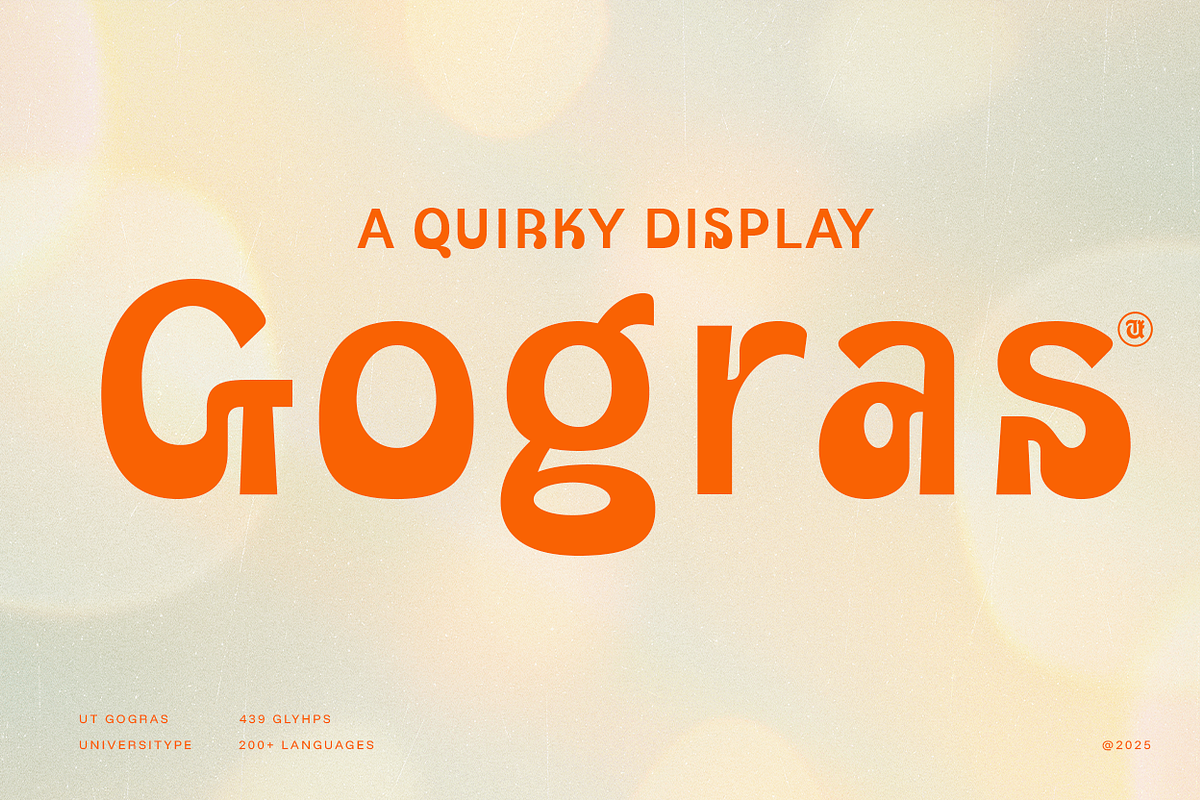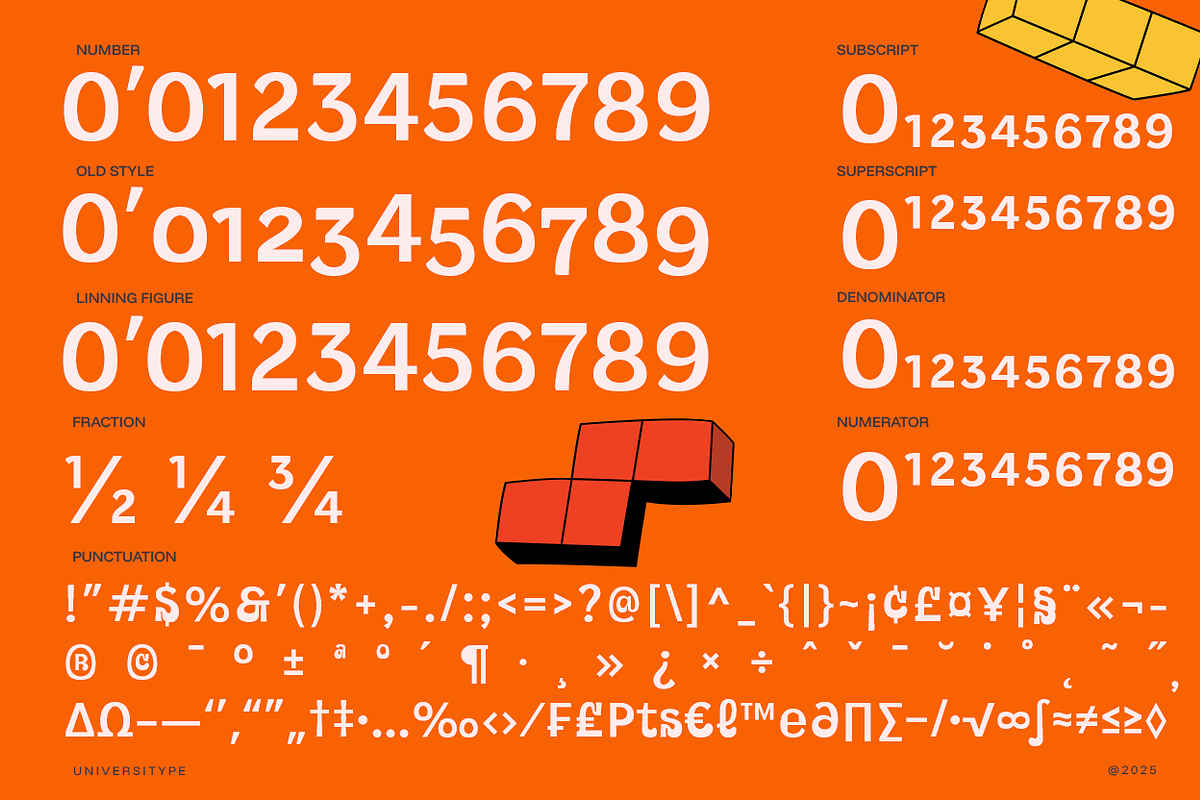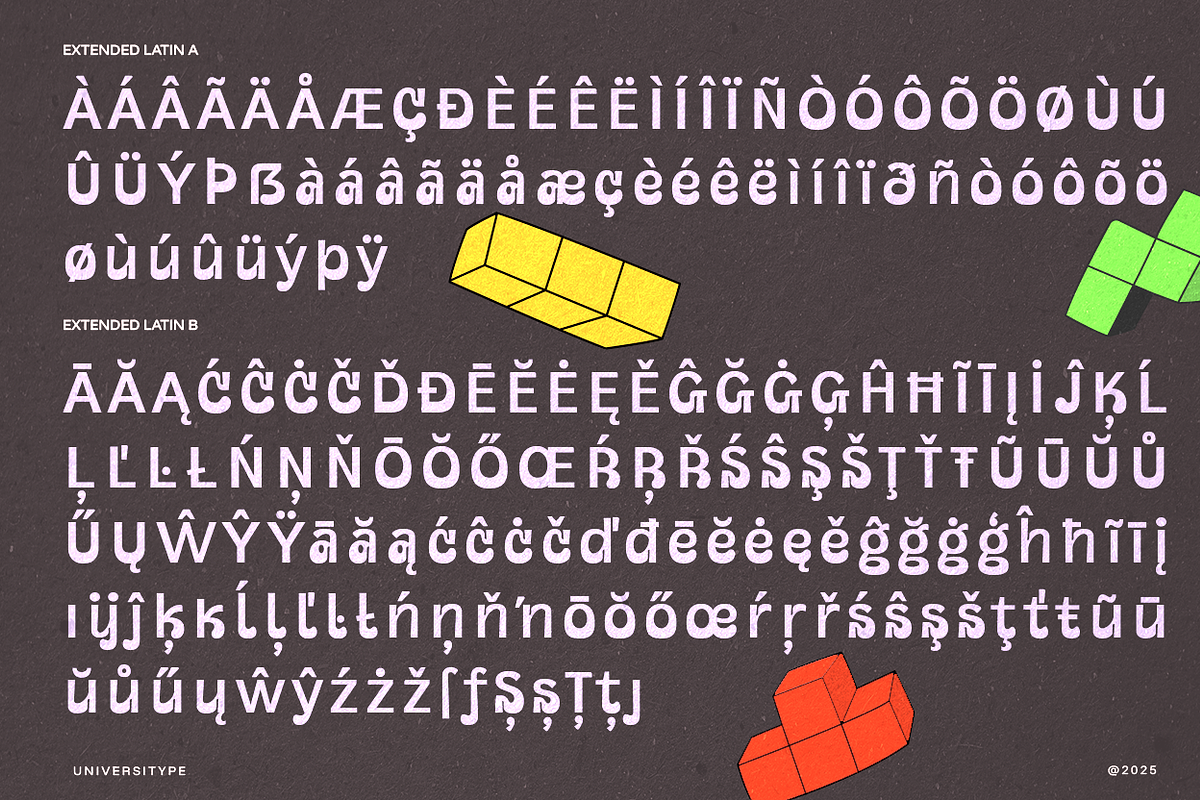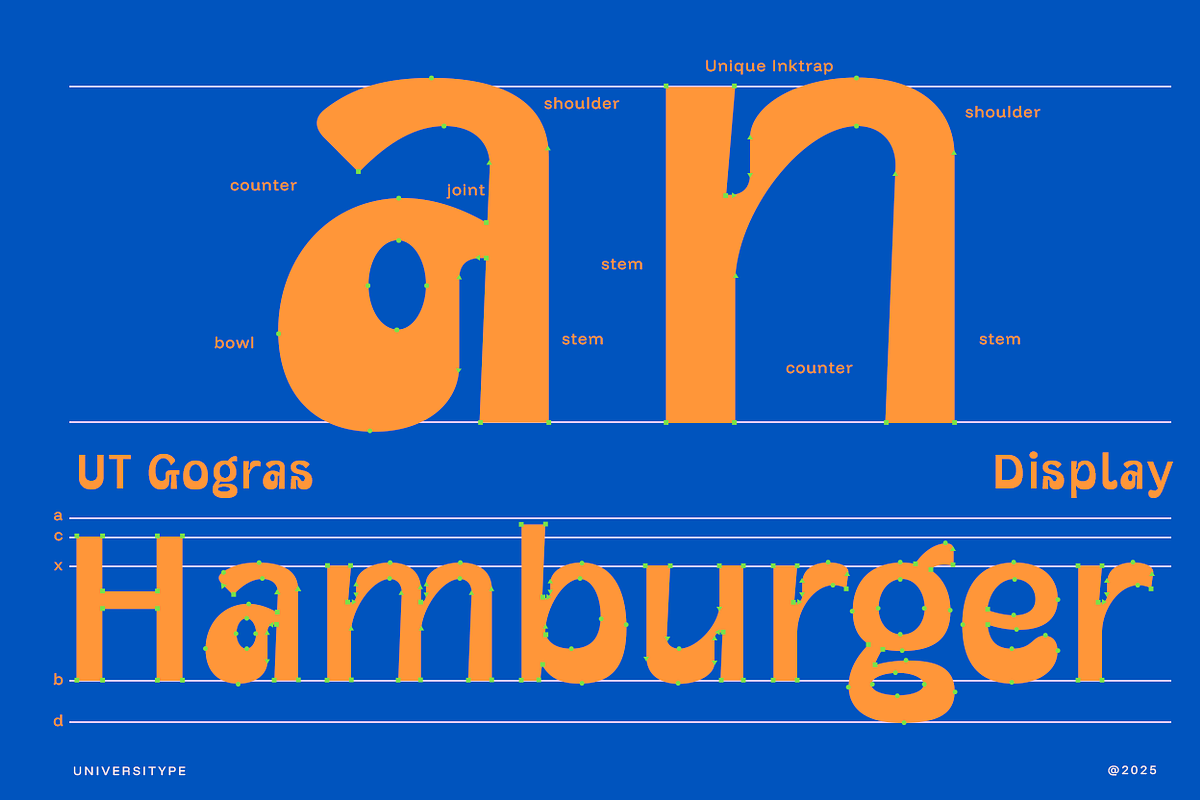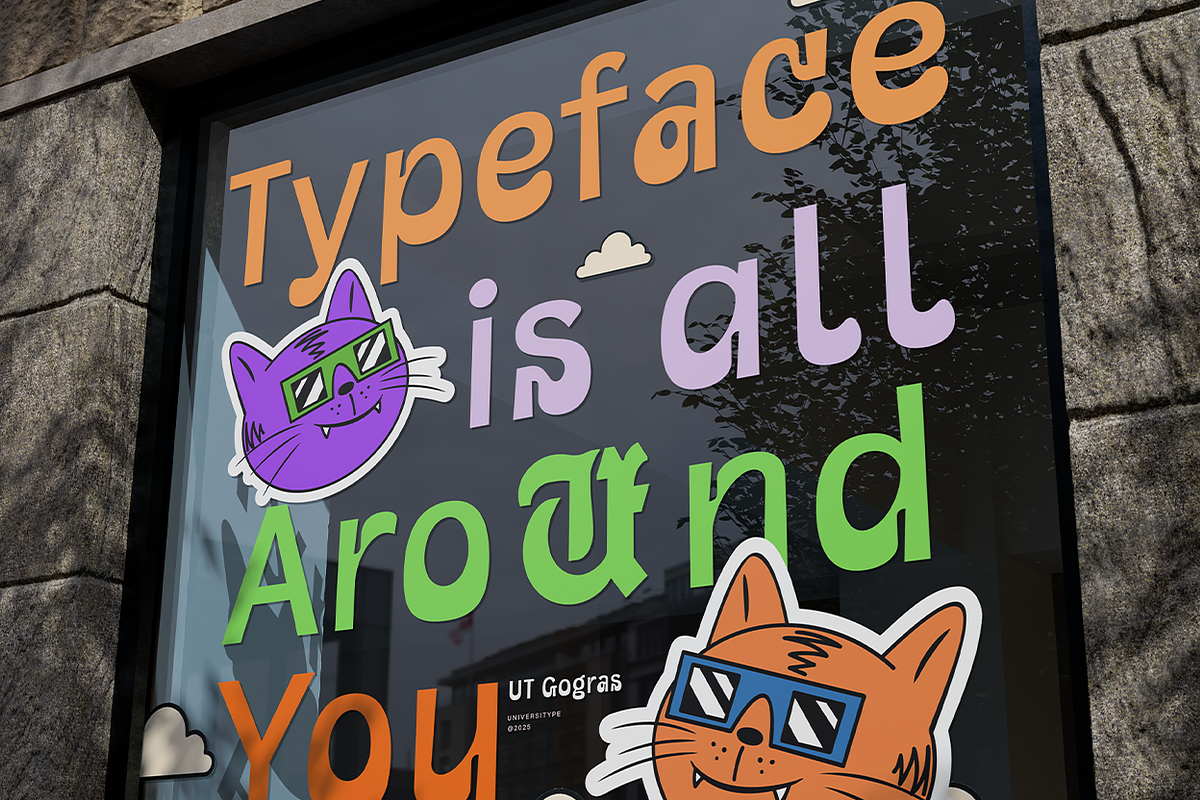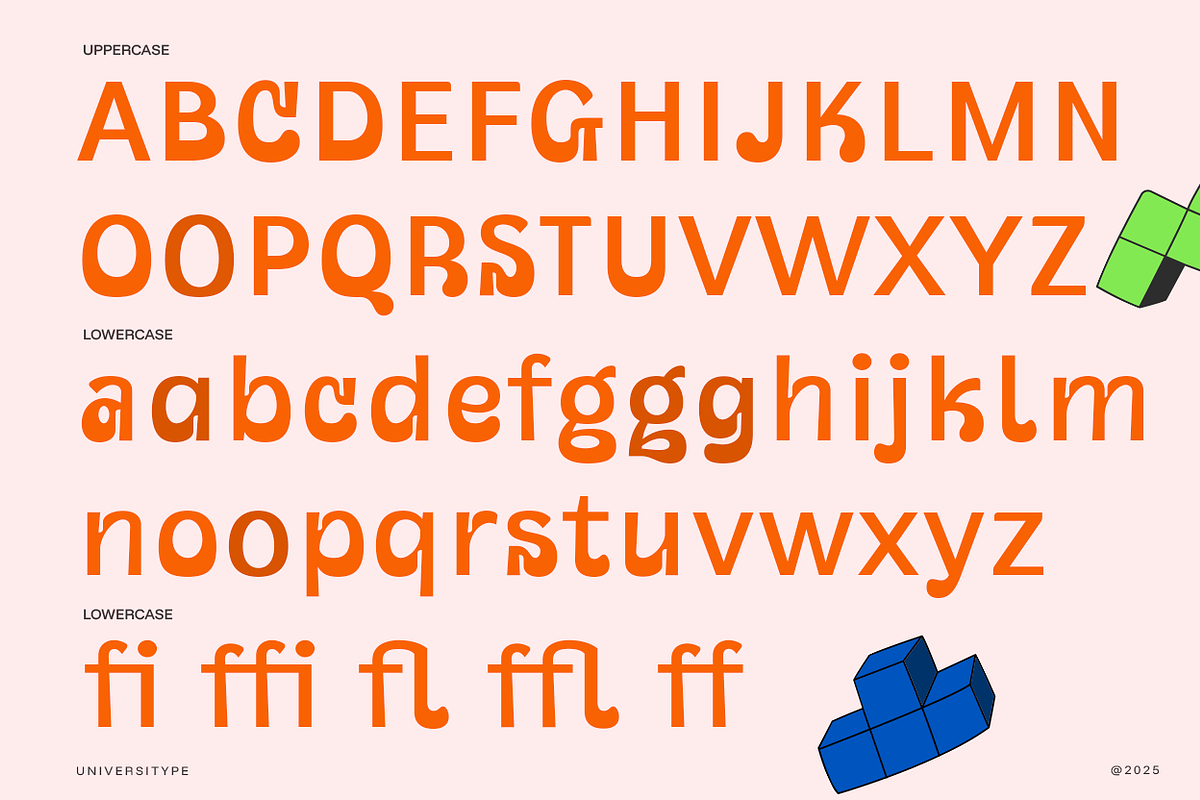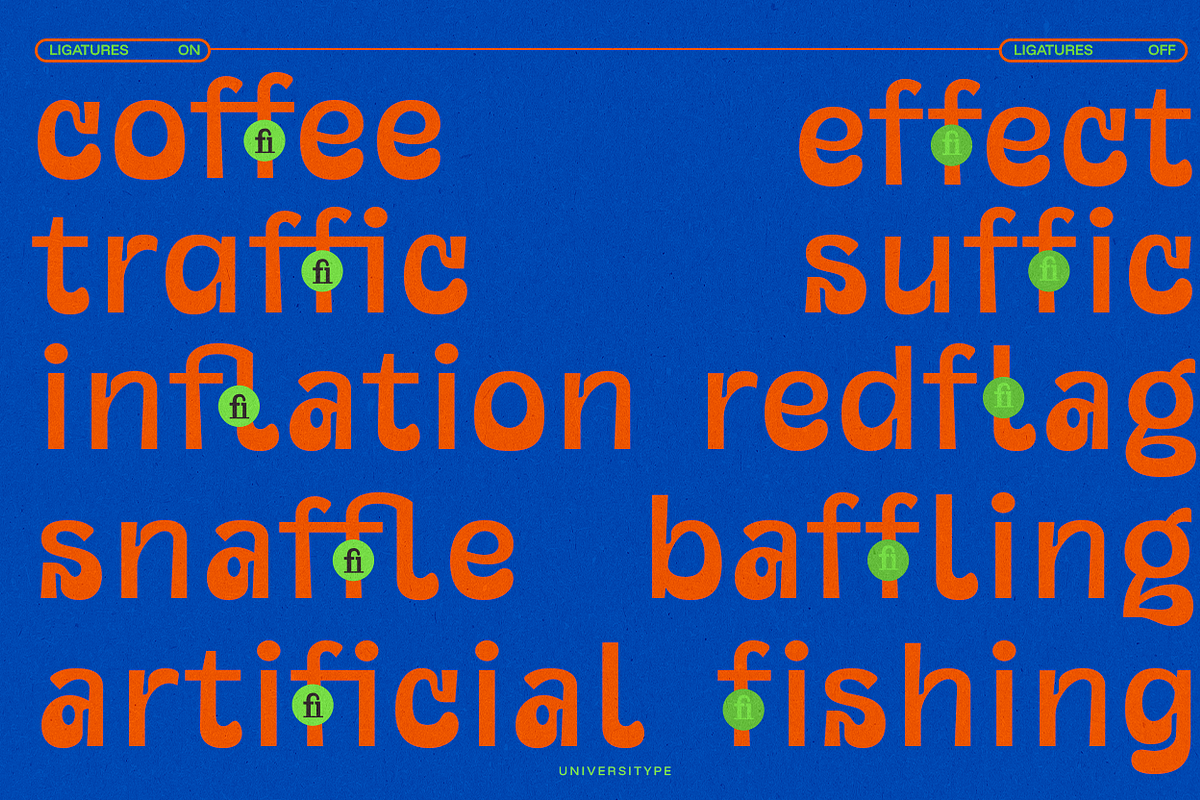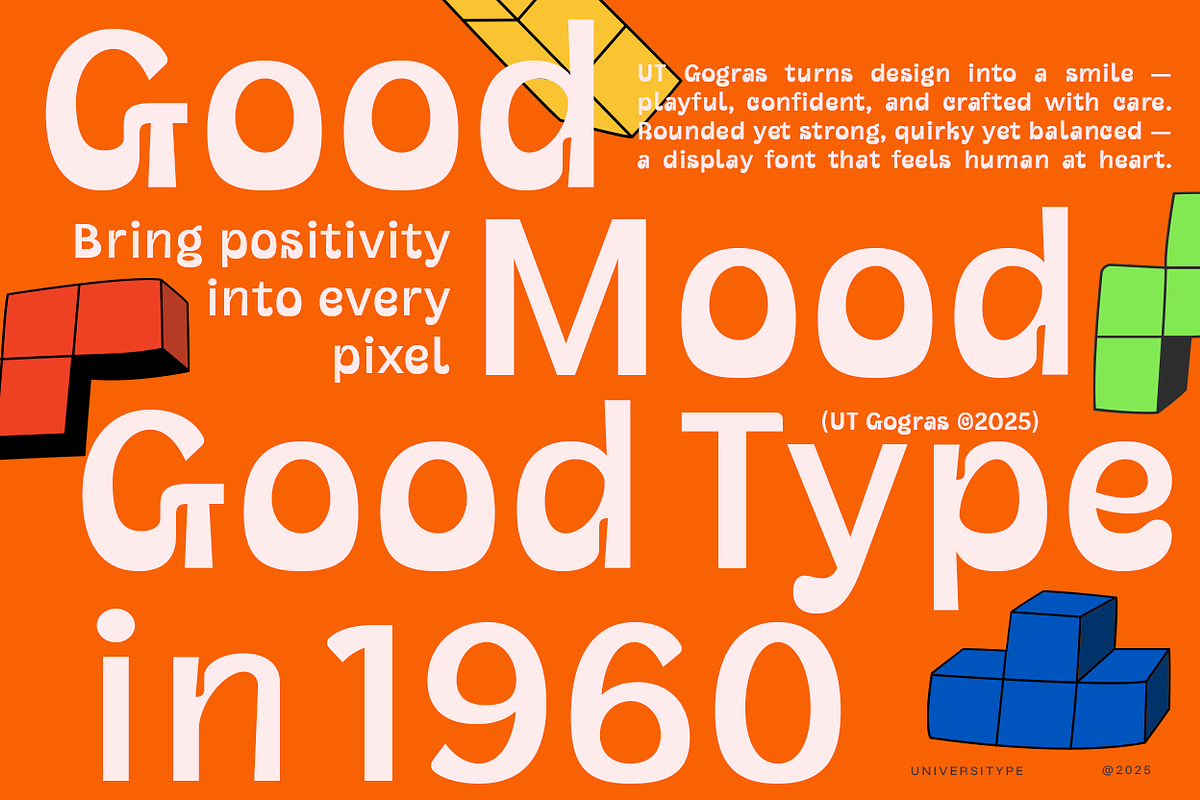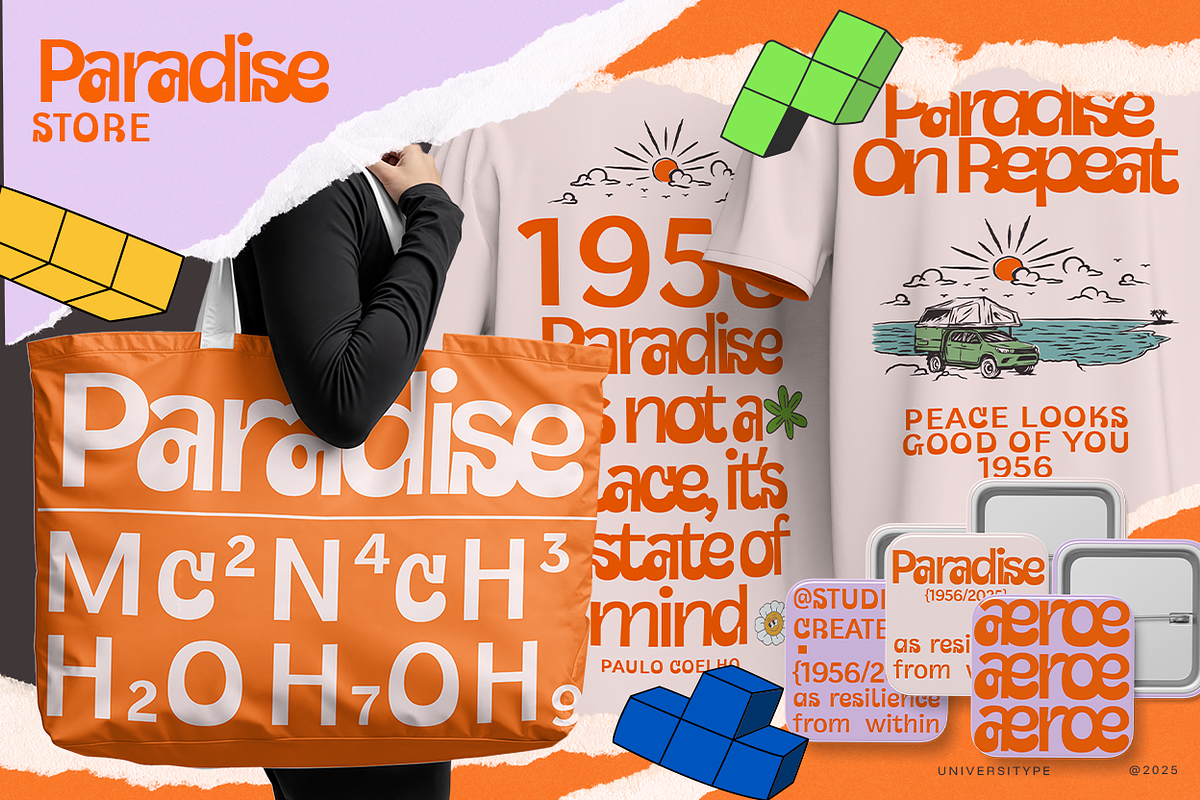
UT Gogras - A Quirky Display Font
UT Gogras – A Quirky Display Font
UT Gogras is a quirky display font built to bring bold personality into your designs. With chunky strokes, rounded curves, and playful details, it delivers a warm, confident look that instantly stands out.
Each letter features subtle ink traps and unexpected joints, giving the font a crafted feel while staying clear and readable at display sizes. Gogras works best in projects where character matters — from branding and logos to posters, packaging, and social media visuals.
If you’re looking for a display font that feels fun, expressive, and full of energy, Gogras fits right in.
Inspiration Behind the Design
UT Gogras was inspired by the idea of embracing imperfections. Instead of chasing perfect geometry, this font celebrates odd shapes, playful curves, and small surprises hidden in each letter. The goal was to create a display font that feels fun and confident, like a brand that doesn’t take itself too seriously but still knows exactly who it is.
Usage
Ideal for:
- Logos and branding
- Headlines and titles
- Posters and flyers
- Packaging design
- Social media graphics
- Merchandise